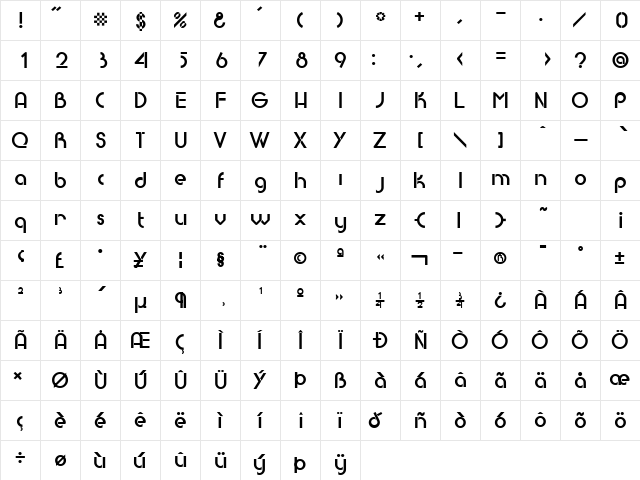
Baby Face Regular
Design Context for Baby Face Typeface
Baby Face offers clean, dependable letterforms without strong stylistic allegiance, making it a practical choice for designers who need flexibility.
Pro Tip: Use Baby Face in both headline and body roles to test its range before committing to a single application.